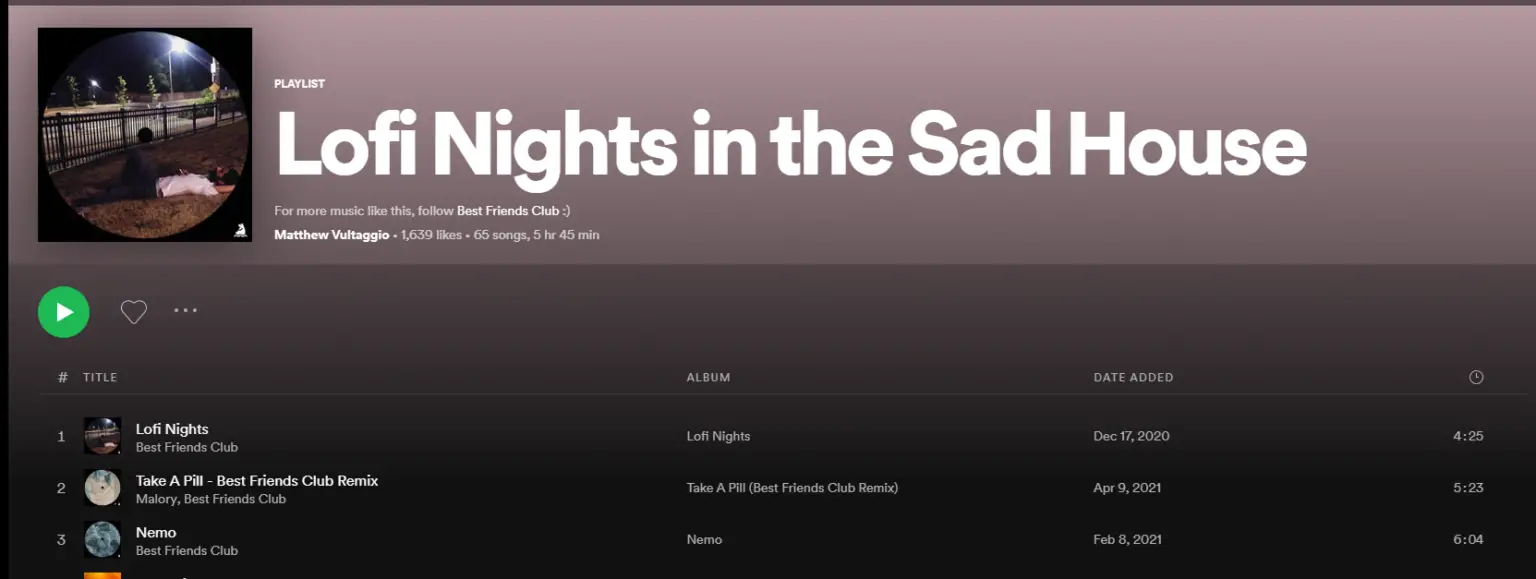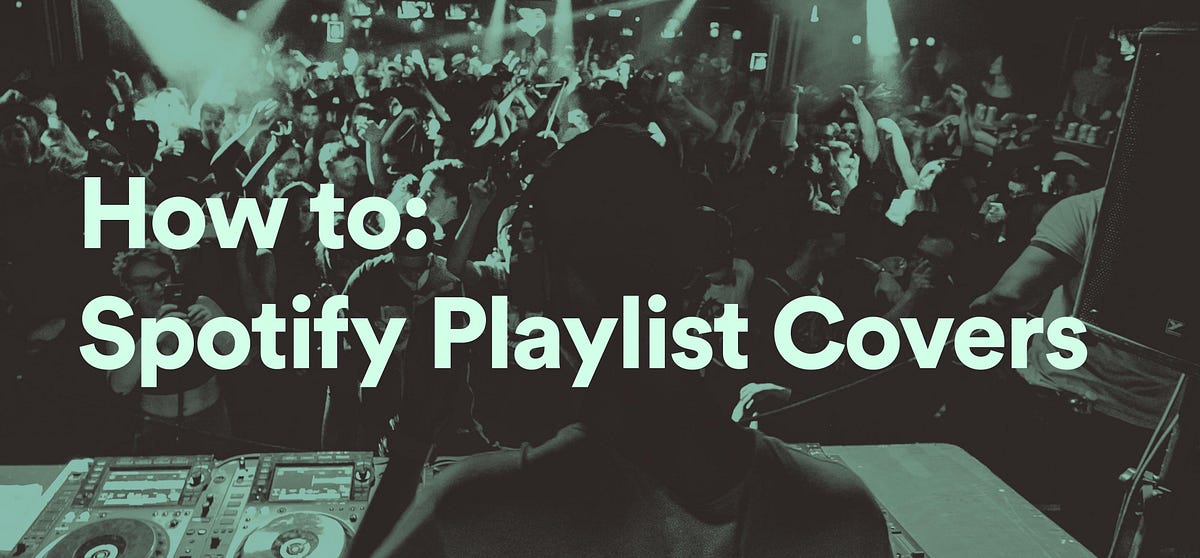
Spotify Playlist Font
Spotify Playlist Font - Circular std is an elegant, modern sans serif font suitable for. What is spotify playlist font? The playlist with the custom font that you've shown above does not actually have a custom font for its title. Spotify playlist font is circular std.
Circular std is an elegant, modern sans serif font suitable for. What is spotify playlist font? The playlist with the custom font that you've shown above does not actually have a custom font for its title. Spotify playlist font is circular std.
The playlist with the custom font that you've shown above does not actually have a custom font for its title. Circular std is an elegant, modern sans serif font suitable for. What is spotify playlist font? Spotify playlist font is circular std.
Circular std is an elegant, modern sans serif font suitable for. What is spotify playlist font? The playlist with the custom font that you've shown above does not actually have a custom font for its title. Spotify playlist font is circular std.
The playlist with the custom font that you've shown above does not actually have a custom font for its title. Circular std is an elegant, modern sans serif font suitable for. Spotify playlist font is circular std. What is spotify playlist font?
What is spotify playlist font? Circular std is an elegant, modern sans serif font suitable for. Spotify playlist font is circular std. The playlist with the custom font that you've shown above does not actually have a custom font for its title.
Spotify playlist font is circular std. Circular std is an elegant, modern sans serif font suitable for. What is spotify playlist font? The playlist with the custom font that you've shown above does not actually have a custom font for its title.
What is spotify playlist font? Circular std is an elegant, modern sans serif font suitable for. The playlist with the custom font that you've shown above does not actually have a custom font for its title. Spotify playlist font is circular std.
Spotify playlist font is circular std. The playlist with the custom font that you've shown above does not actually have a custom font for its title. What is spotify playlist font? Circular std is an elegant, modern sans serif font suitable for.
What is spotify playlist font? Circular std is an elegant, modern sans serif font suitable for. Spotify playlist font is circular std. The playlist with the custom font that you've shown above does not actually have a custom font for its title.
What is spotify playlist font? Circular std is an elegant, modern sans serif font suitable for. The playlist with the custom font that you've shown above does not actually have a custom font for its title. Spotify playlist font is circular std.
The playlist with the custom font that you've shown above does not actually have a custom font for its title. Spotify playlist font is circular std. Circular std is an elegant, modern sans serif font suitable for. What is spotify playlist font?
Circular Std Is An Elegant, Modern Sans Serif Font Suitable For.
What is spotify playlist font? The playlist with the custom font that you've shown above does not actually have a custom font for its title. Spotify playlist font is circular std.